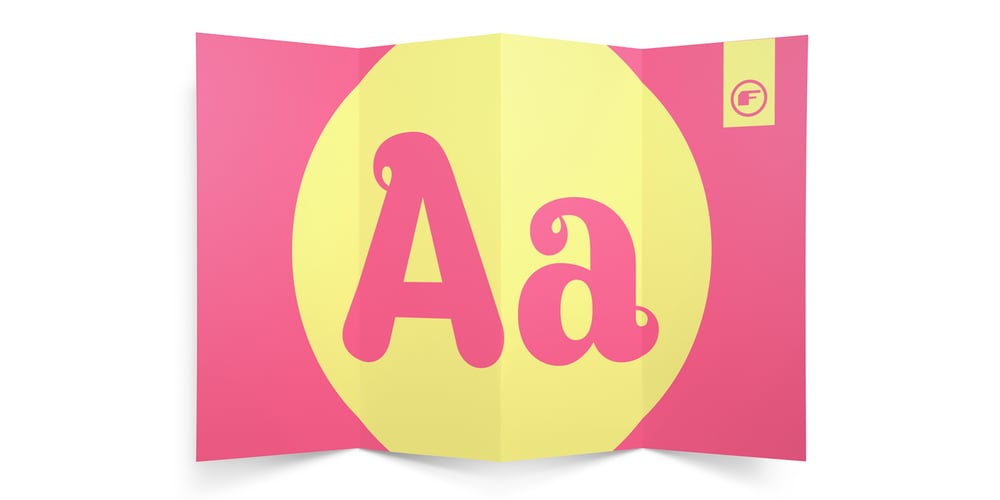
Emmie
Emmie font
Emmie Font Family was designed by David Lawless and published by Fontmill Foundry. Emmie contains 1 styles and family package options. Emmie is a friendly display face with fat curly terminals, which is great for billboards, branding, headlines and editorial design as well as screen based applications. It has over 450 glyphs and includes opentype features such as discretionary ligatures and stylistic alternates.